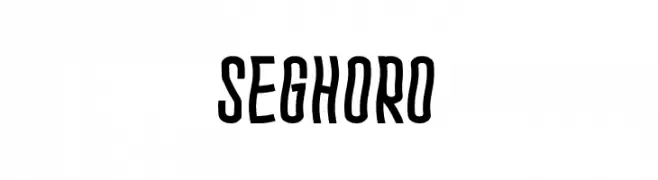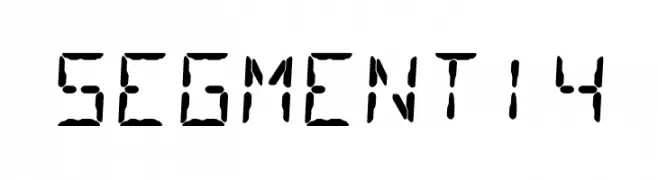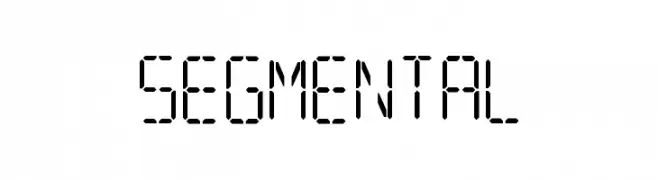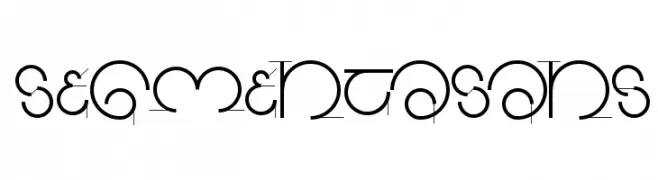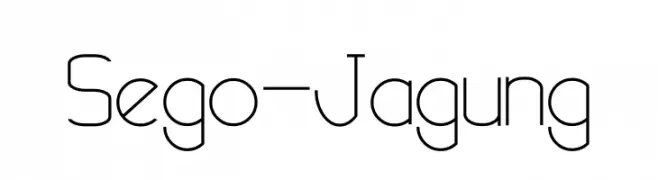
A graceful, cursive font with elegant, flowing strokes.
A bold, geometric font with sharp angles and a futuristic style.
A bold, dynamic font with elongated, curved strokes and a modern, condensed appearance.
A digital-inspired font resembling seven-segment displays with a geometric, technical style.
A modern, geometric font with sharp angles and circular elements.
A modern, geometric font with clean lines and a minimalist style.